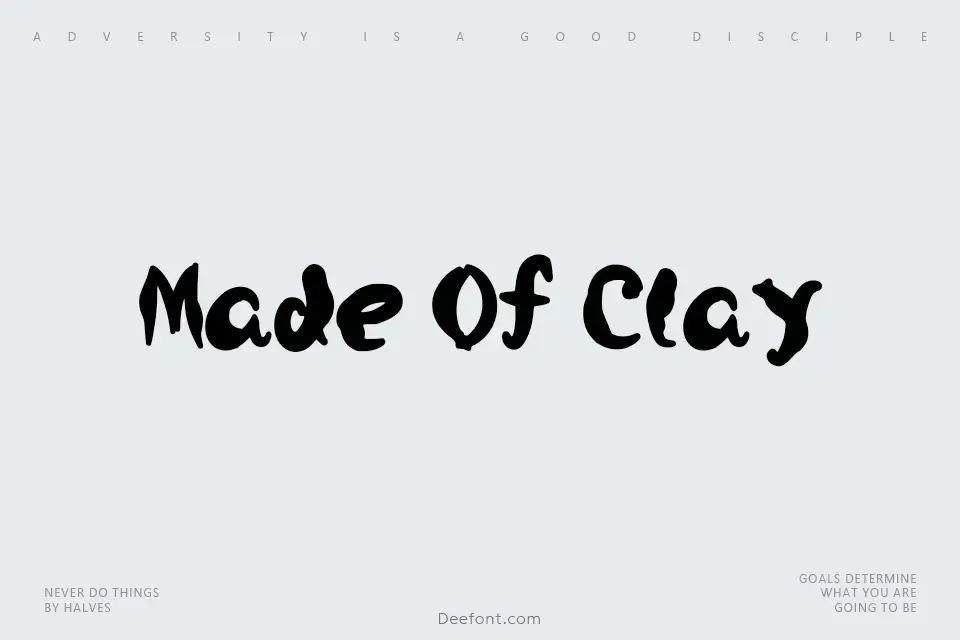
Made Of Clay Font
Made Of Clay is a bold, expressive script font featuring organic, hand-crafted letterforms with irregular strokes and playful character. This typeface delivers authentic hand-drawn energy, making it an ideal choice for creative posters, eye-catching display headlines, artistic logos, packaging design, and decorative applications. The font’s distinctive trash aesthetic creates visual impact for projects requiring personality and contemporary flair.***email:Jagat.kcfnb@gmail.com